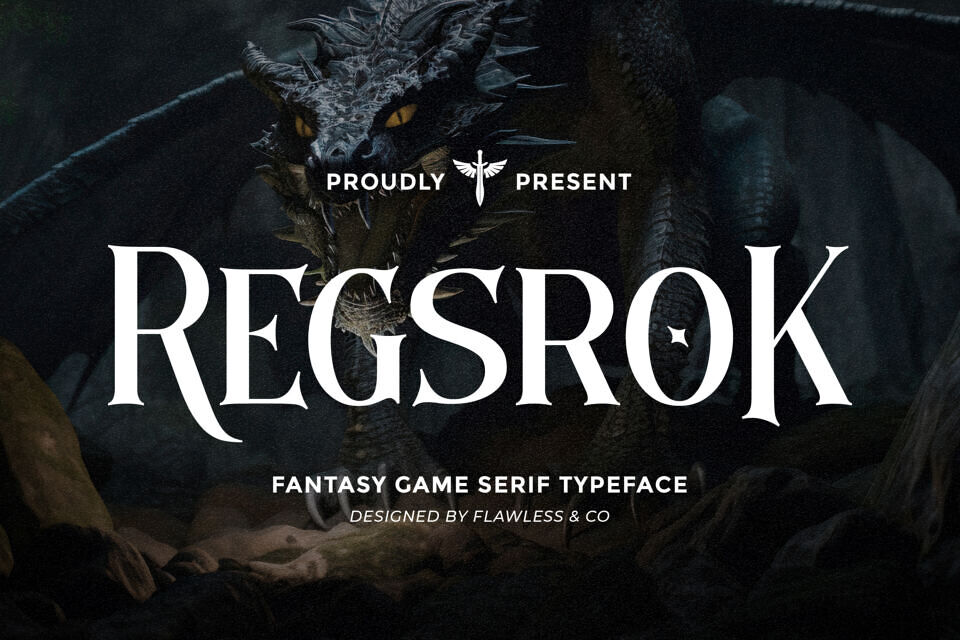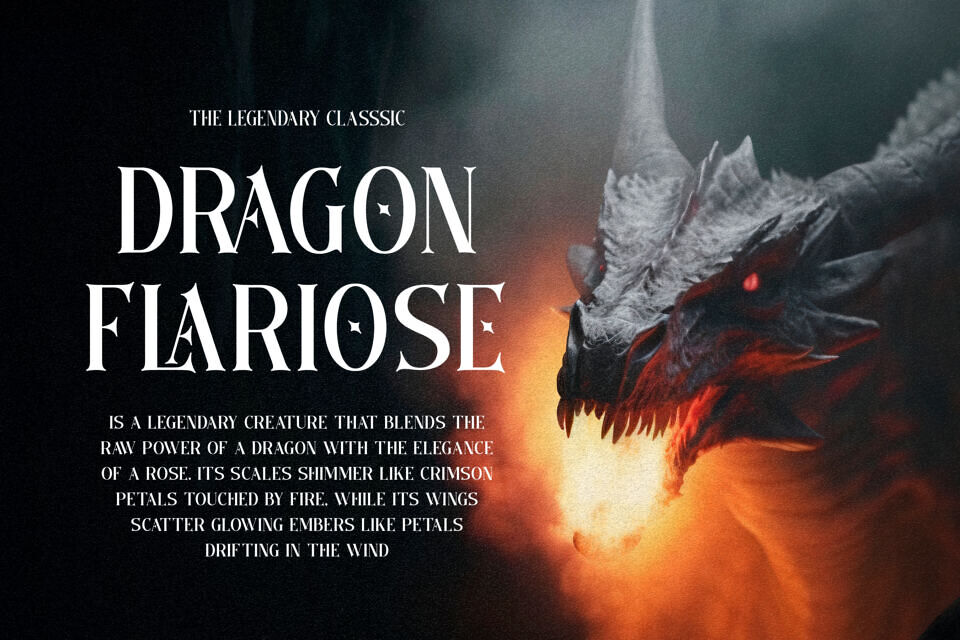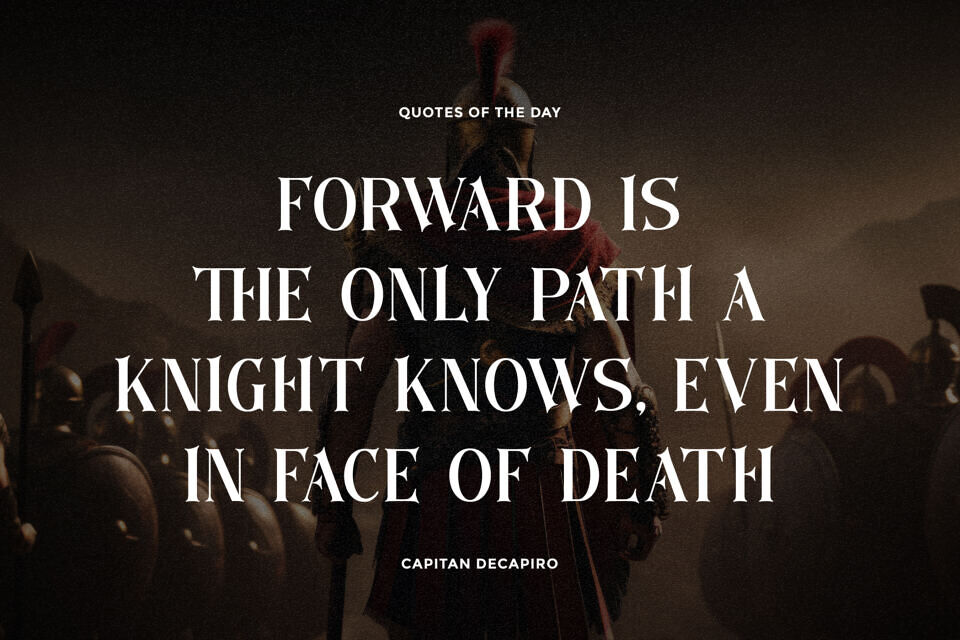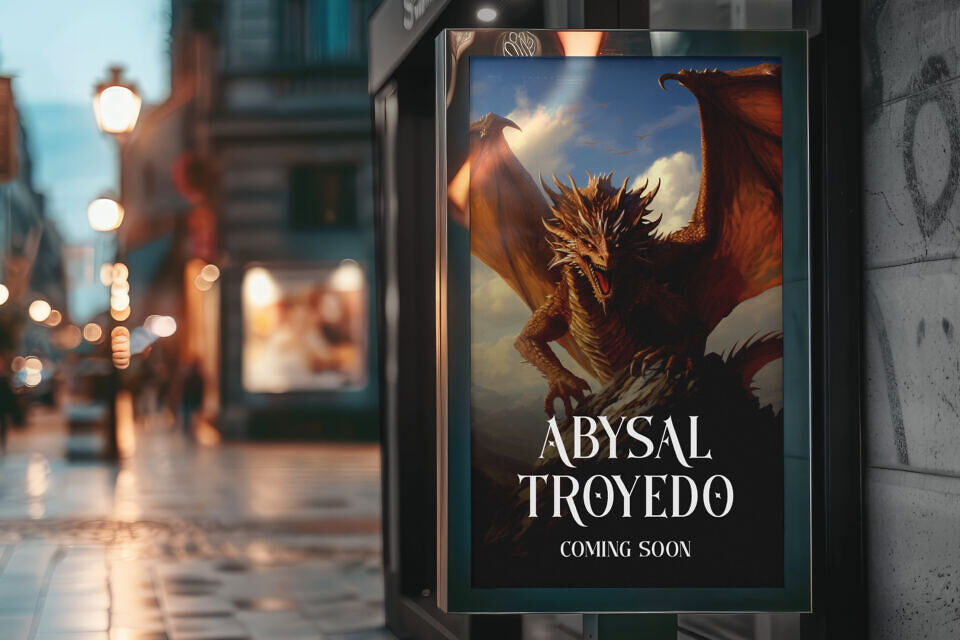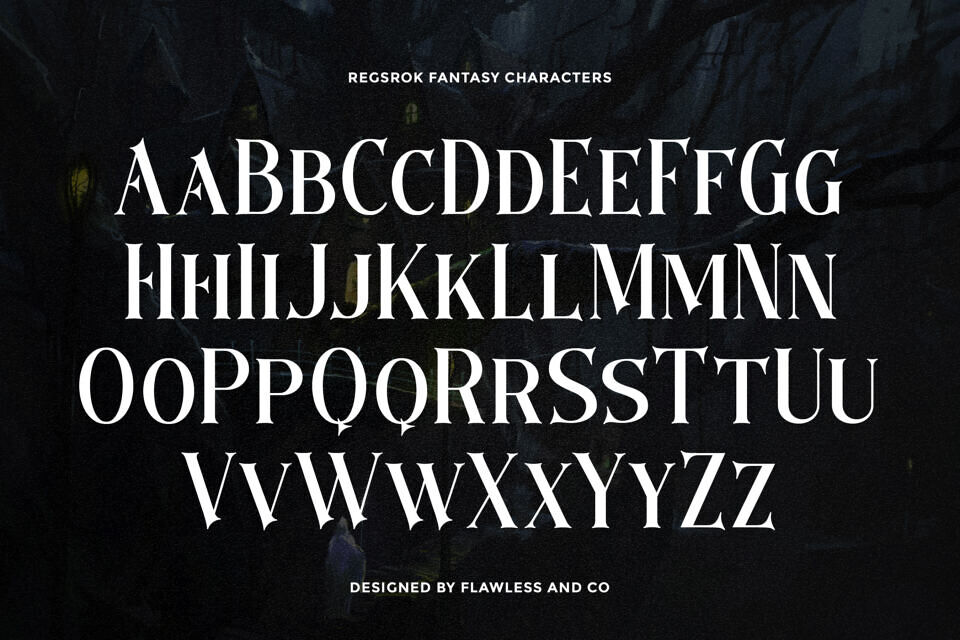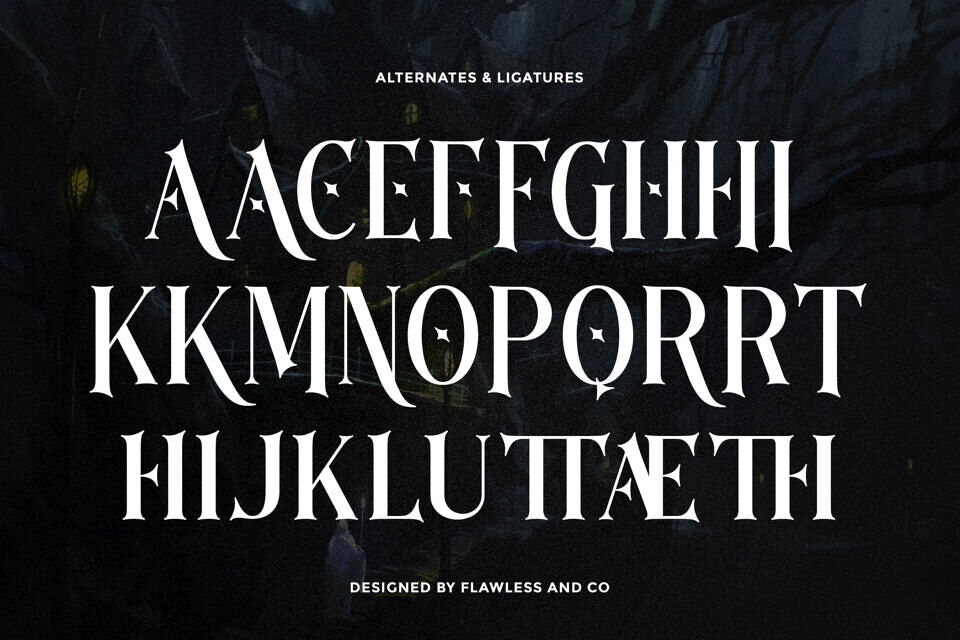
Regsrok Font
Regsrok is a fantasy game serif typeface crafted to bring epic storytelling and adventurous worlds to life. With its sharp serifs, dramatic shapes, and distinctive medieval-inspired details, Regsrok captures the spirit of fantasy realms and heroic journeys.
Its strong and decorative character makes it perfect for creating immersive visuals that stand out in gaming and fantasy-themed designs. Whether you’re designing game titles, book covers, or cinematic posters, Regsrok delivers a powerful and legendary presence.